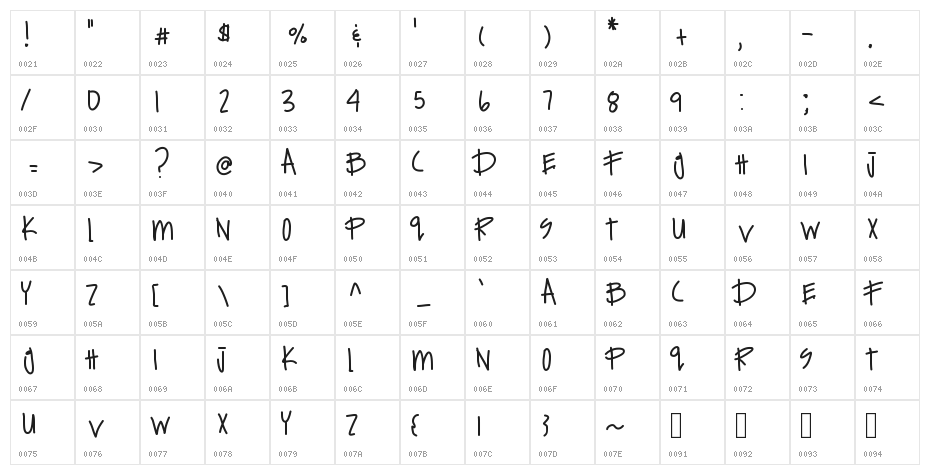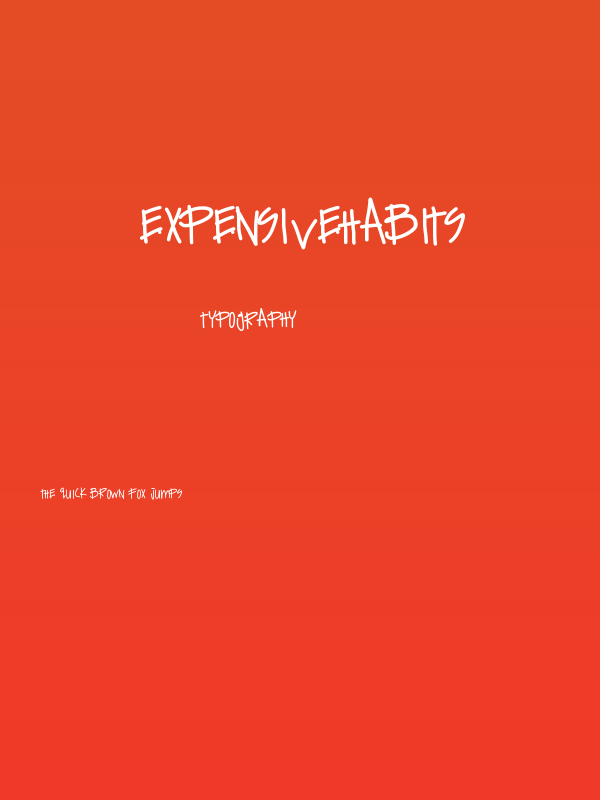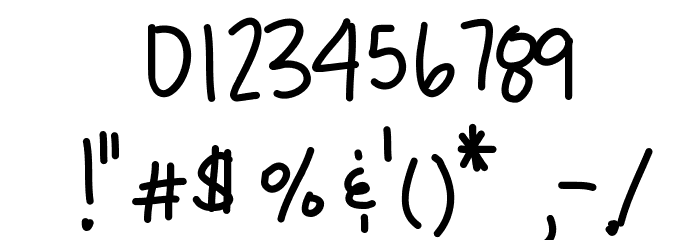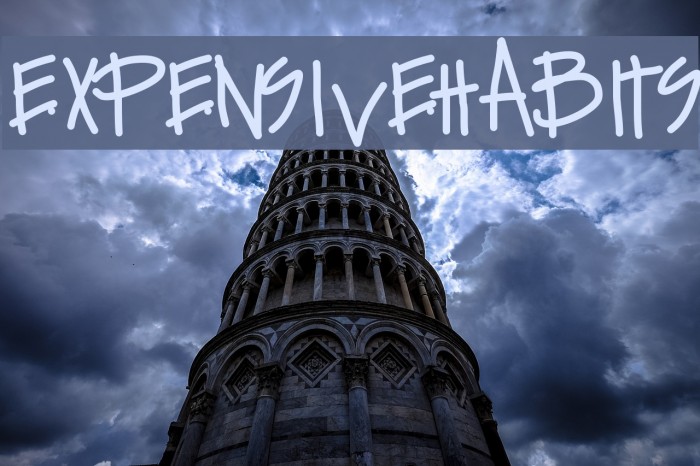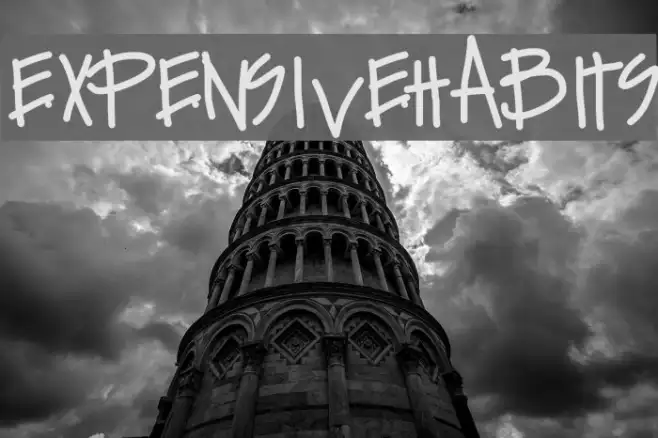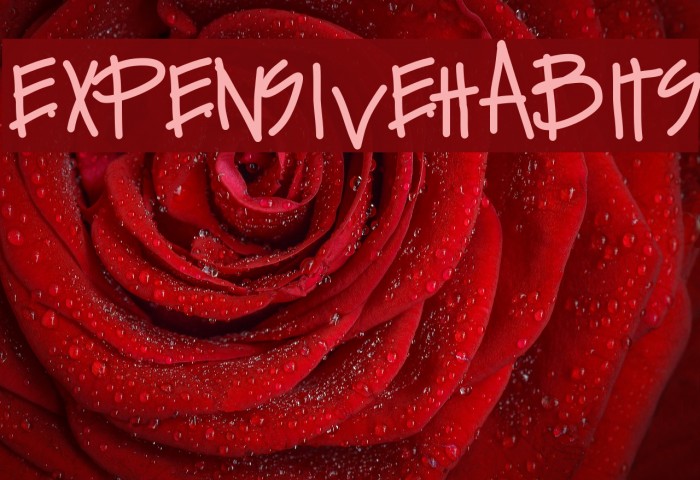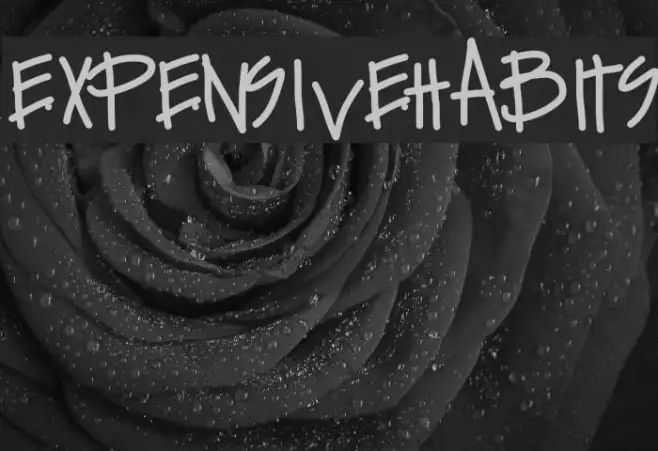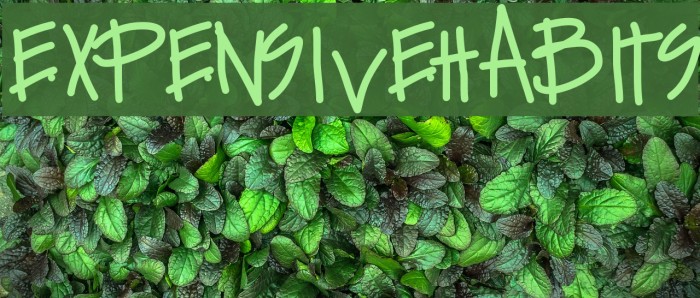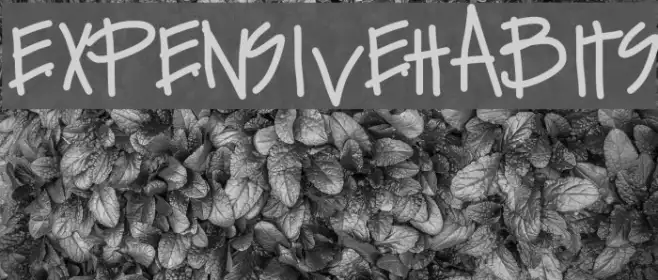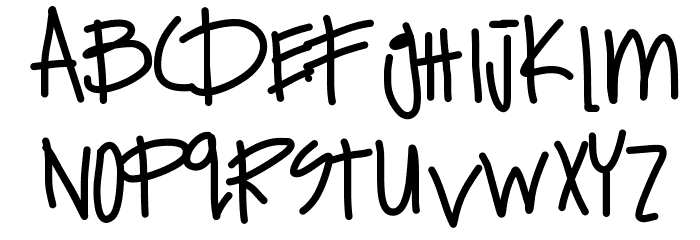
ExpensiveHabits Font
ExpensiveHabits Description
This font exudes a playful and casual handwritten style, characterized by its loose and informal strokes. The letters are slightly slanted, giving them a dynamic and energetic appearance. The uppercase and lowercase letters maintain a consistent style, with rounded edges and a uniform thickness that adds to the font's approachable feel. The numerals and special characters are crafted with the same playful touch, ensuring a cohesive look across all glyphs. This font is perfect for projects that require a personal, friendly touch, such as greeting cards, children's books, or informal branding materials.